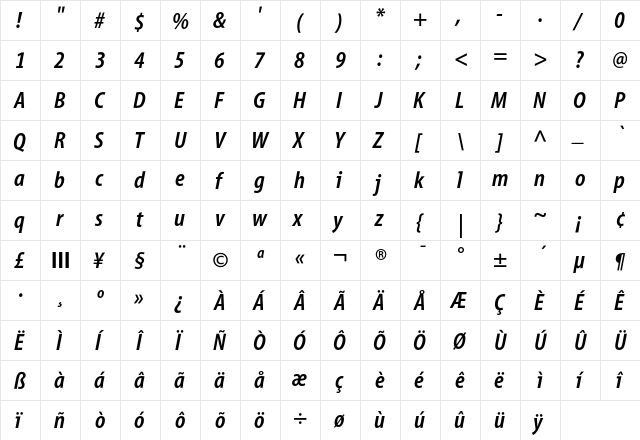
BerlinMyriad BoldItalic Font Preview
Design Context for BerlinMyriad Typeface
BerlinMyriad takes a measured approach to typography — its balanced proportions and neutral character make it a reliable workhorse for both digital and print work. The dynamic lean of this cut emphasises speed and emphasis in any layout. Its bold stroke weight gives it real presence on the page.
Pro Tip: Try BerlinMyriad for annotation and caption copy alongside an upright companion — the contrast in angle creates a dynamic but ordered typographic system.